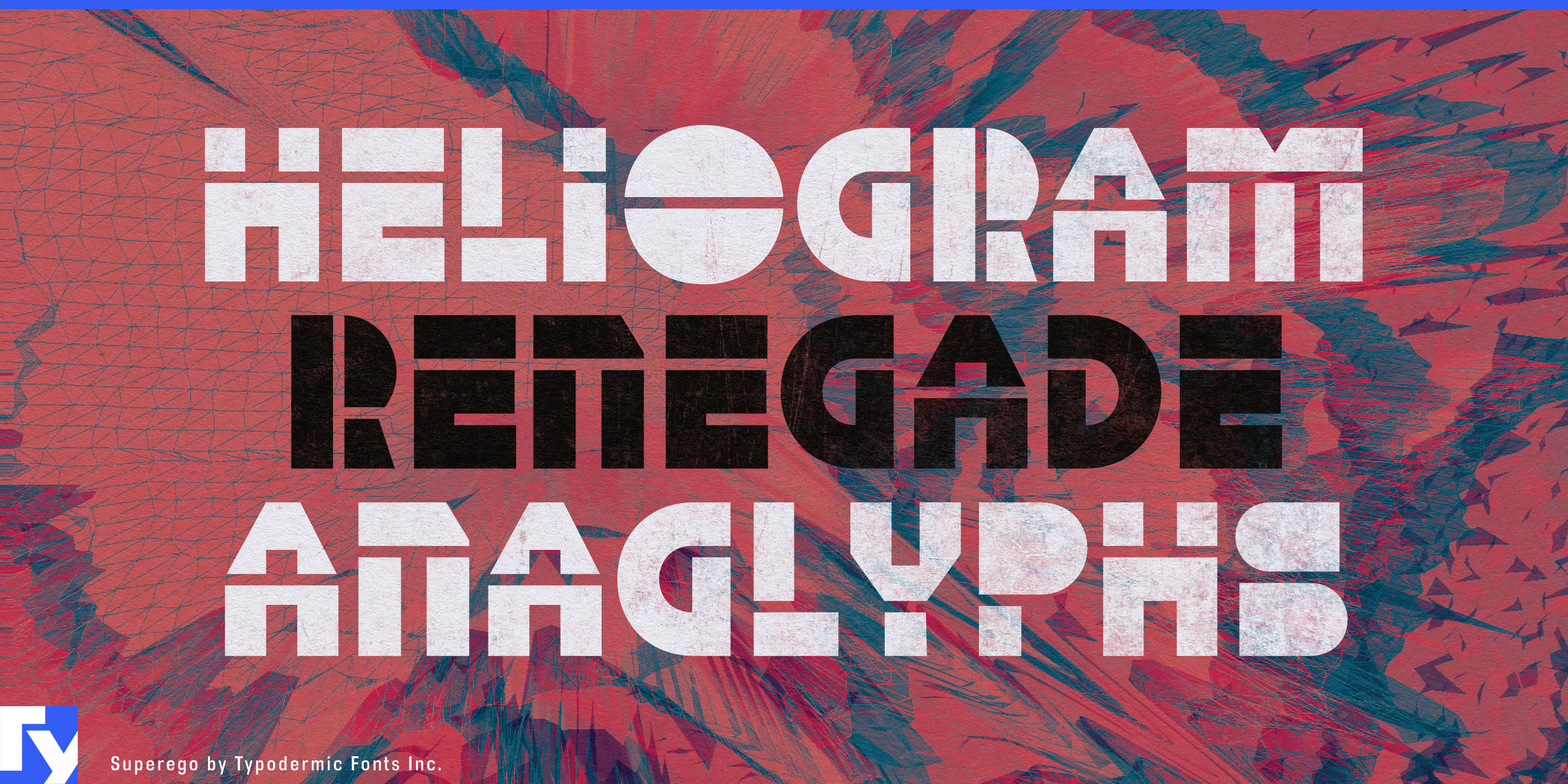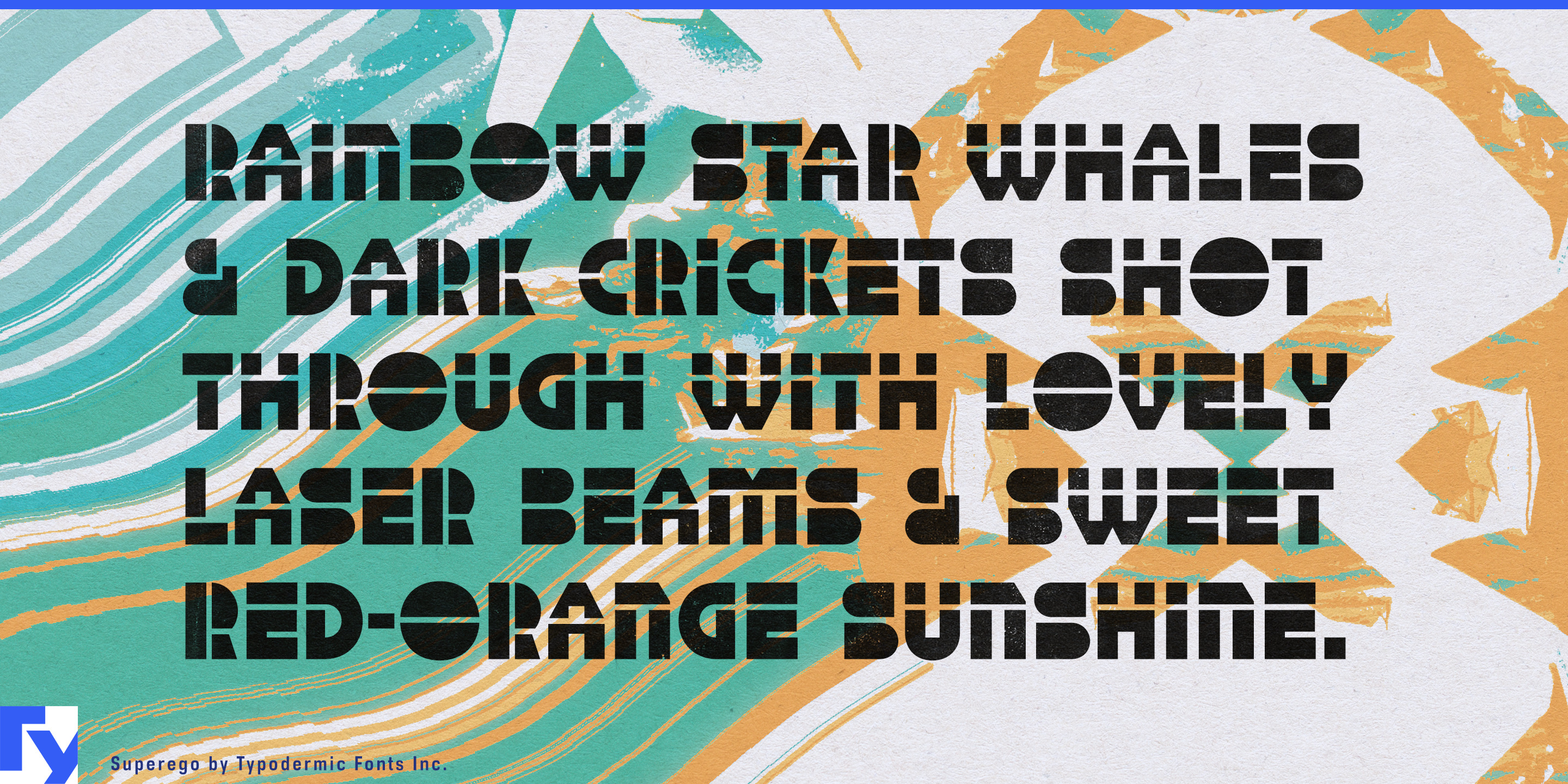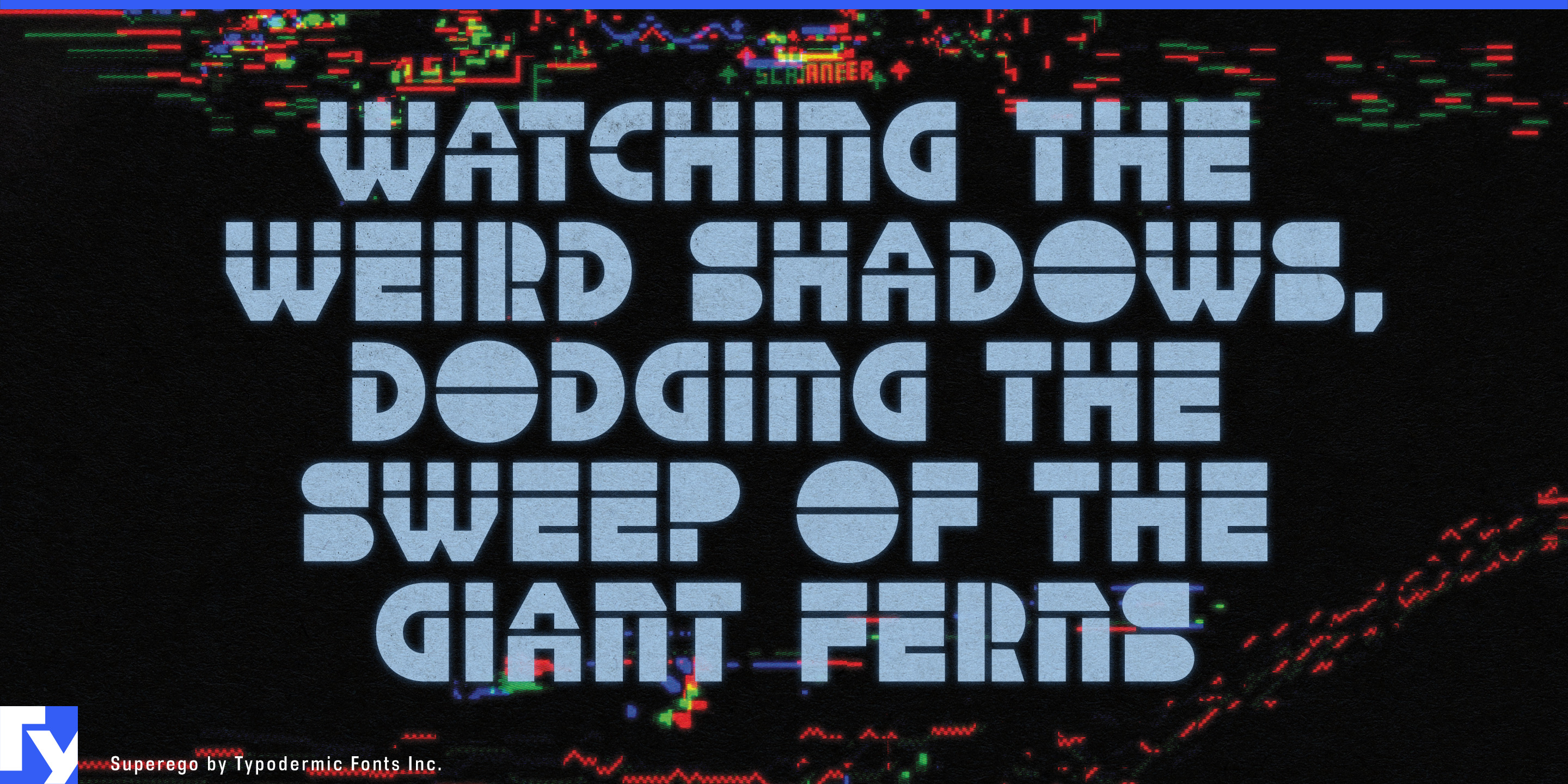
Superego
Prepare for typographic liftoff with Superego—a geometric-techno typeface that doesn’t just push the envelope, it launches it into orbit. Born from the enticing glow of 1981’s Stargate arcade cabinets, Superego catapults retro-futurism into the present with the force of a supernova.
Superego’s primitive geometric shapes are a declaration that the future of design isn’t sleek and polished—it’s raw, angular, and unapologetically bold. Each character is a tiny rebellion, a geometric warrior in the war against the mundane. But don’t mistake Superego’s radical aesthetics for impracticality. This typeface is a linguistic polymath, fluent in a staggering array of Latin-based European languages. From the fjords of Norway to the plains of Hungary, Superego speaks the language of innovation with a accent that’s impossible to ignore.
Choose Superego when your design needs to break free from Earth’s gravitational pull. It’s perfect for brands that dare to be different, for event posters that demand to be noticed, or for any project that requires a dose of digital rebellion. In a world of curved edges and soft gradients, Superego stands proud—all sharp angles and high contrast, like a beacon of individuality in a sea of conformity.
So, are you ready to join the typographic insurgency? To turn your designs into declarations of independence from the ordinary? Then it’s time to unleash Superego.